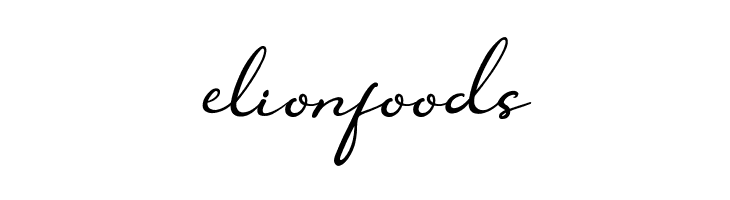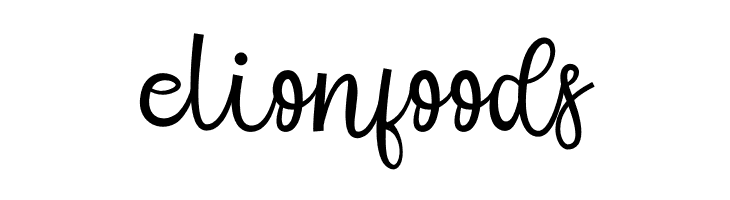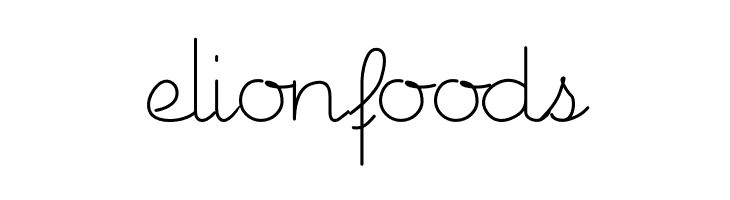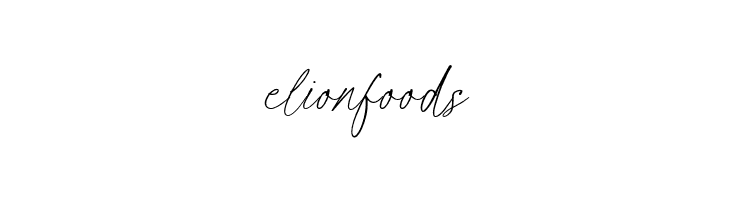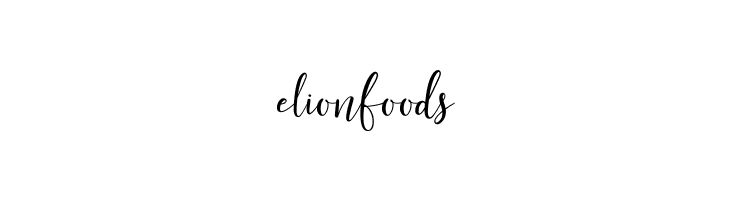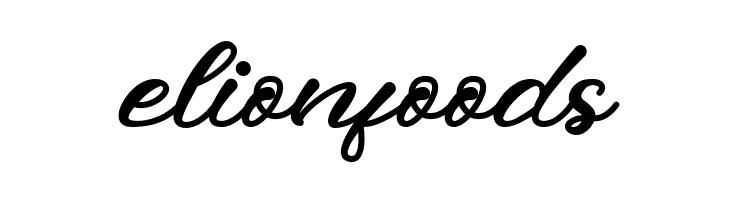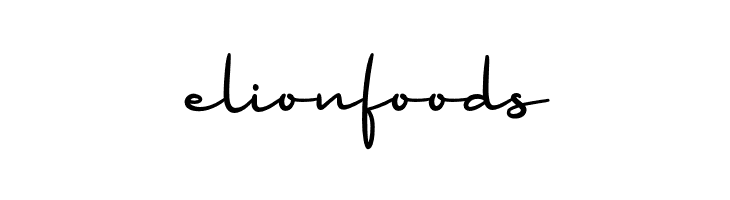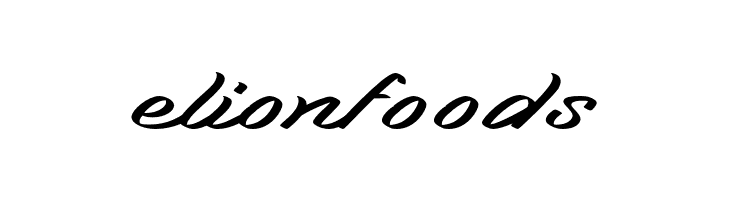
A graceful script font with fluid, cursive strokes and elegant curves.
A dynamic and elegant script font with flowing, cursive letterforms.
A playful and energetic script font with flowing, cursive letters and medium contrast.
A playful, whimsical script font with flowing, interconnected letters.
A modern, elegant script font with fluid, handwritten strokes.
A graceful and ornate script font with flowing, cursive letterforms.
An elegant script font with flowing, cursive lines and sophisticated curves.
A graceful script font with flowing, connected strokes and elegant flourishes.
A flowing, elegant cursive script with consistent stroke width.
A dynamic and energetic script font with flowing, cursive letterforms.